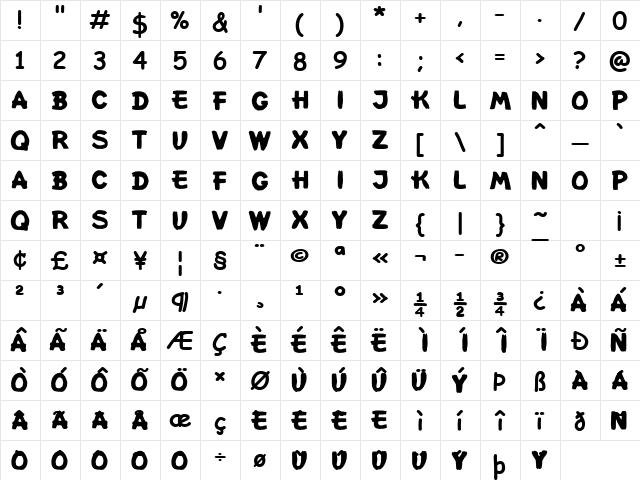
Suske en Wiske Kaftletters Regular
| Foundry | Microsoft Corp. |
| Designer | Vincent Connare |
Design Context for Suske en Wiske Kaftletters Typeface
Suske en Wiske Kaftletters is a composed and adaptable typeface that performs quietly and consistently across a wide range of design contexts.